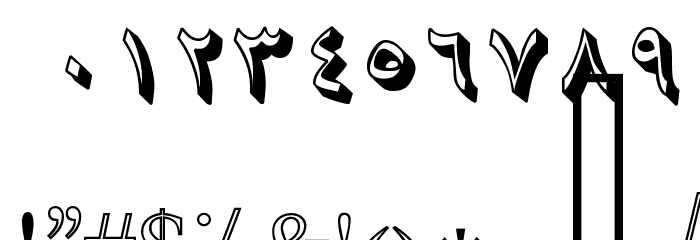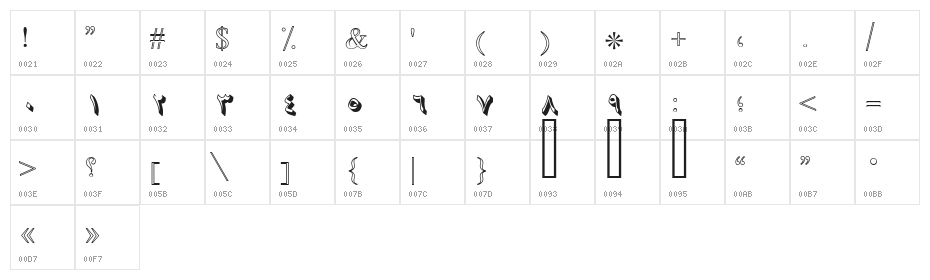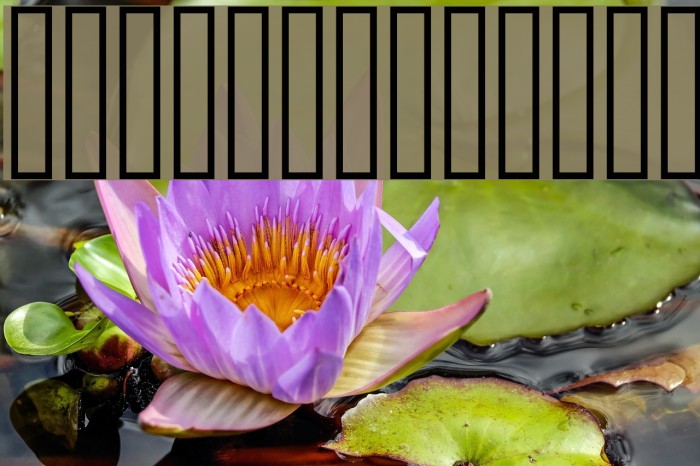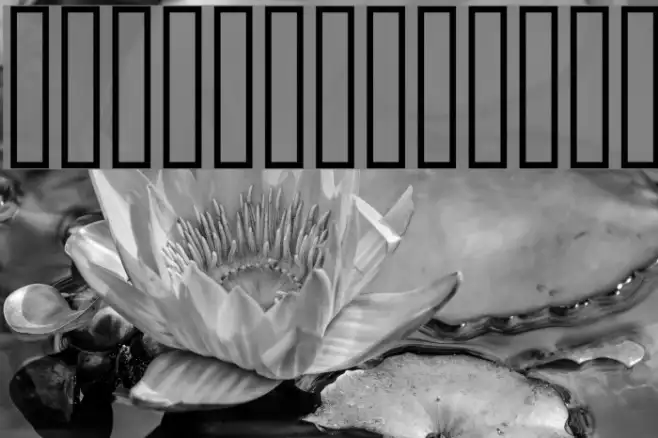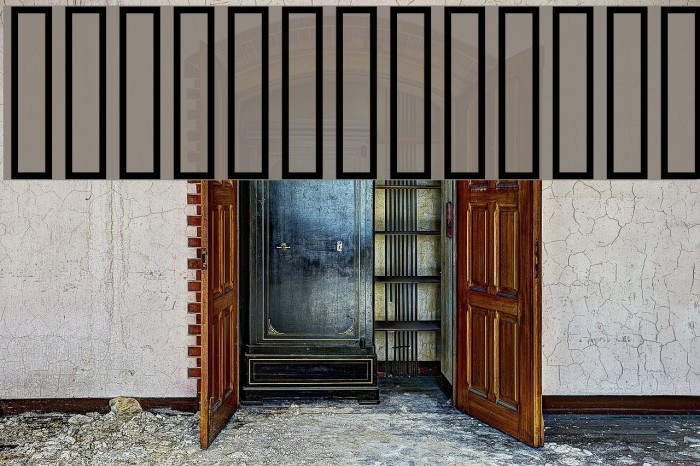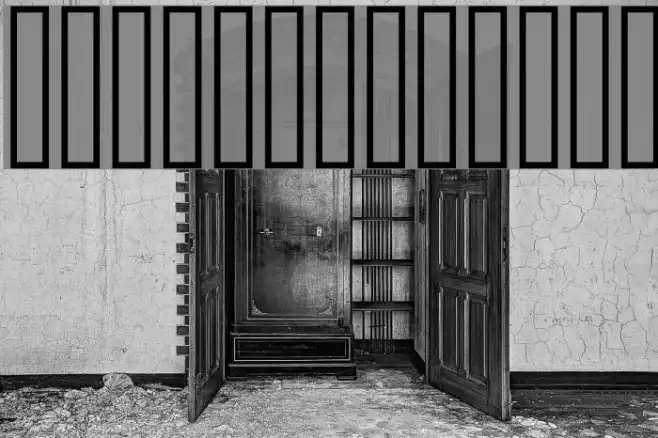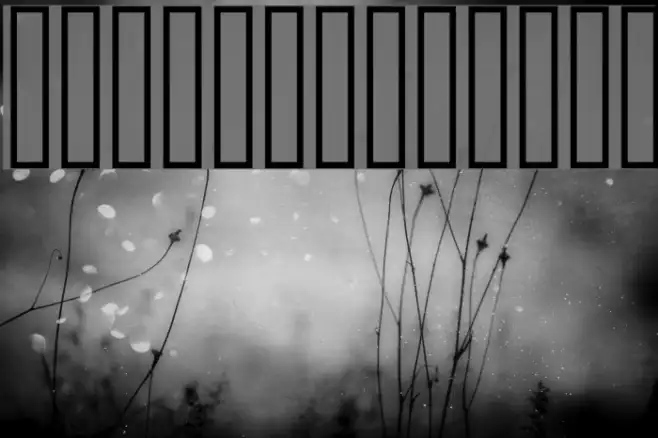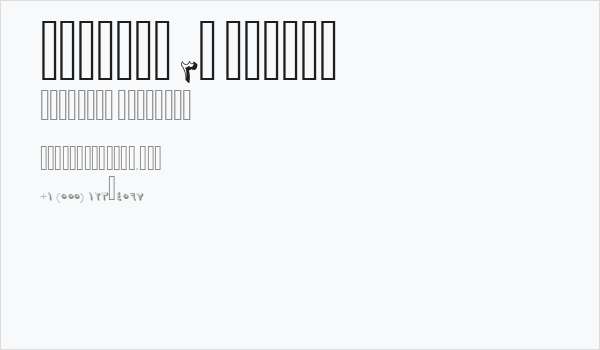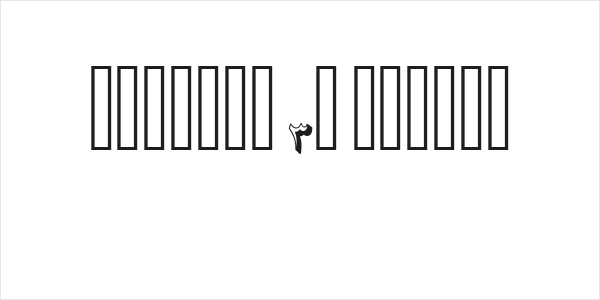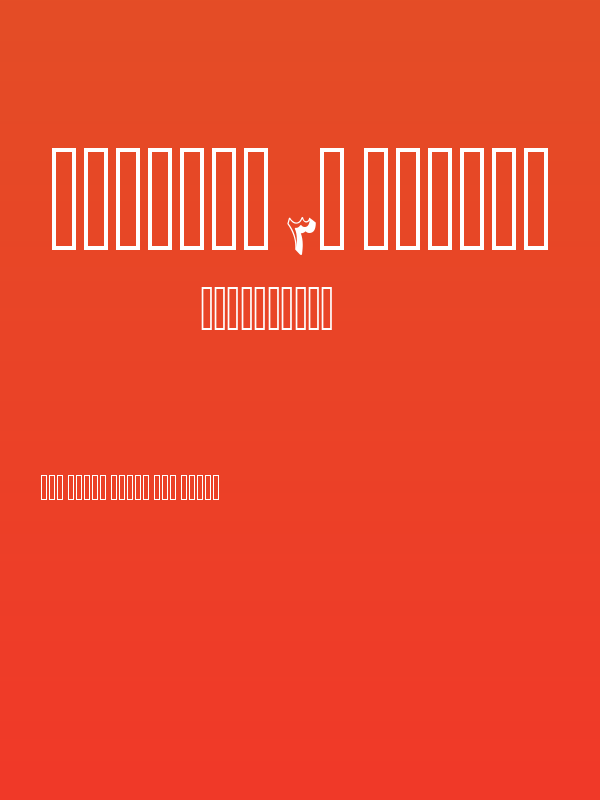
Diwaani 3D Shadow Font
Diwaani 3D Shadow Description
This font features a unique 3D shadow effect that gives it a striking and bold appearance. The characters are designed with a distinct shadow that creates a sense of depth and dimension, making it stand out on any page. The style is reminiscent of traditional calligraphy with a modern twist, incorporating sharp angles and smooth curves. The numerals and special characters maintain the same shadowed effect, ensuring consistency across all text elements. This font is ideal for projects that require a dramatic and eye-catching typeface.
| Proposed Projects | Ideal for posters, headlines, branding, and any design requiring a dramatic visual impact. |